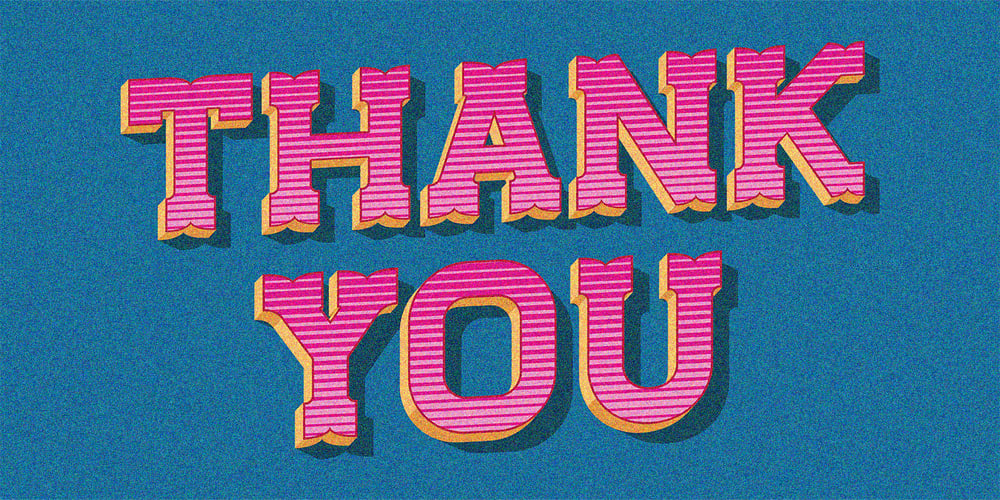
Staincool
Staincool font
Staincool Font Family was designed by Lukman Hidayat and published by Viaction Type.Co. Staincool contains 6 styles and family package options. Staincool is a layered Font, with a retro style, and is inspired by the artist’s sign painter style. There are 6 layers that are easy to use. Staincool developed from the Stengkol 04 font (https://www.myfonts.com/font/viaction-type/stengkol/) that is added to 3D fonts. This font is perfect for various design purposes such as labels, merchandise, packaging, logotype, sign and more. The Staincool font is perfect for modern & vintage themes by adjusting the desired color on the 3D layer. This font can be used in Adobe Illustrator & Adobe Photoshop. If you have questions & need help please contact us via message or email.